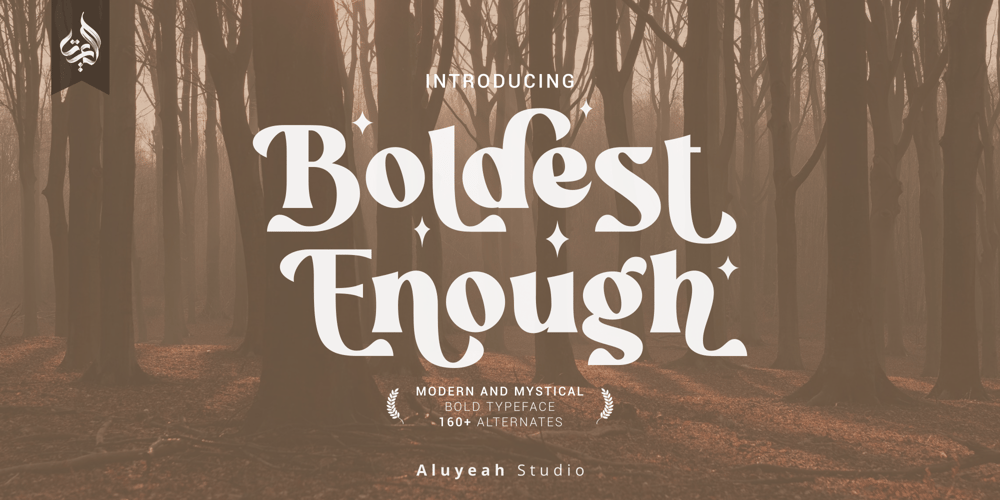
Al Boldest Enough Font Family was designed by Linggar Sundoro and published by Aluyeah Studio. Al Boldest Enough contains 1 styles and family package options. Boldest Enough, modern and mystical bold display typeface. Inspired by the mystical vibe from animation horror movie for kids. It gives you fear, curiosity, and amazement at the same time. Coming with 160+ stunning and super easy to use alternates. Very suitable for magazine, headline, website, ads, product package and all type of design project you have. Features:OpenType supportMultilingual support (15 languages)PUA EncodedSuper Easy to Use alternates – It’s OpenType support but you can easily call alternates character using special combination like A.2 R.3 h.5 etc so you don’t need special software. To get results like the preview just type B.4ol.9d.2es.2t.2 E.4n.5ough.7